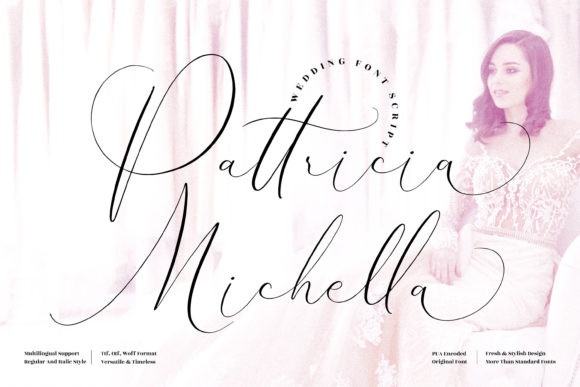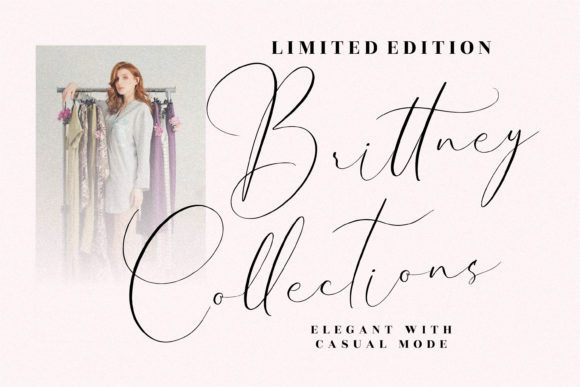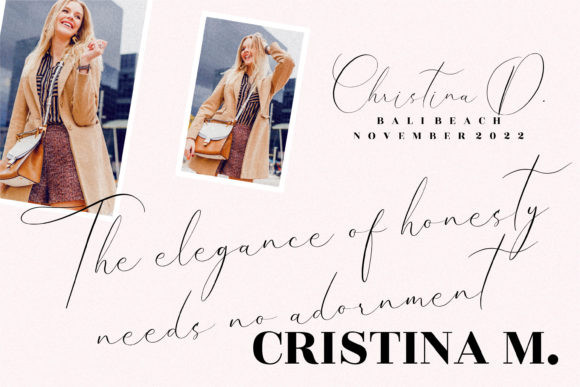
Pattricia Michella Font
Pattricia Michella is a romantic, thin lettered and elegant script font. It looks stunning on wedding invitations, thank you cards, quotes, greeting cards, logos, business cards and every other design which needs a customized touch.